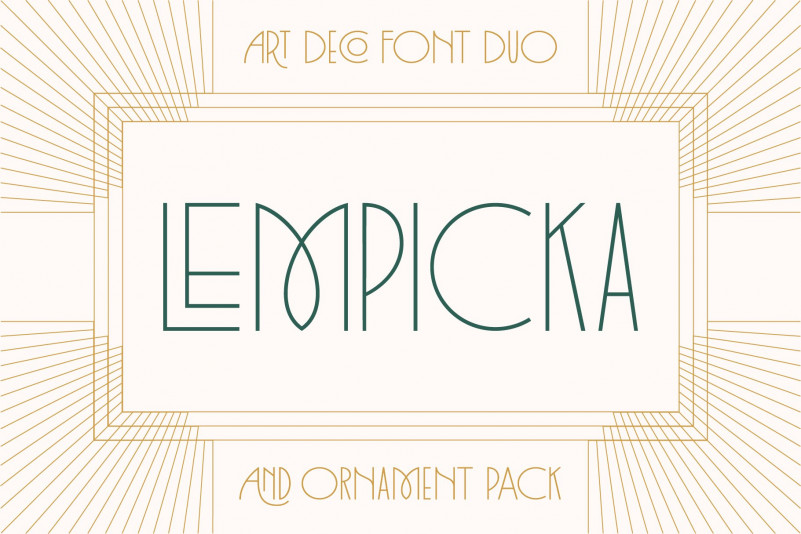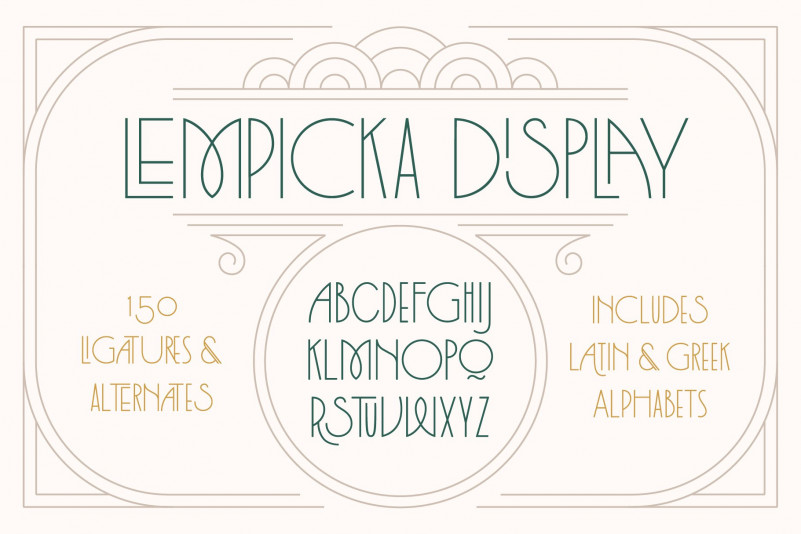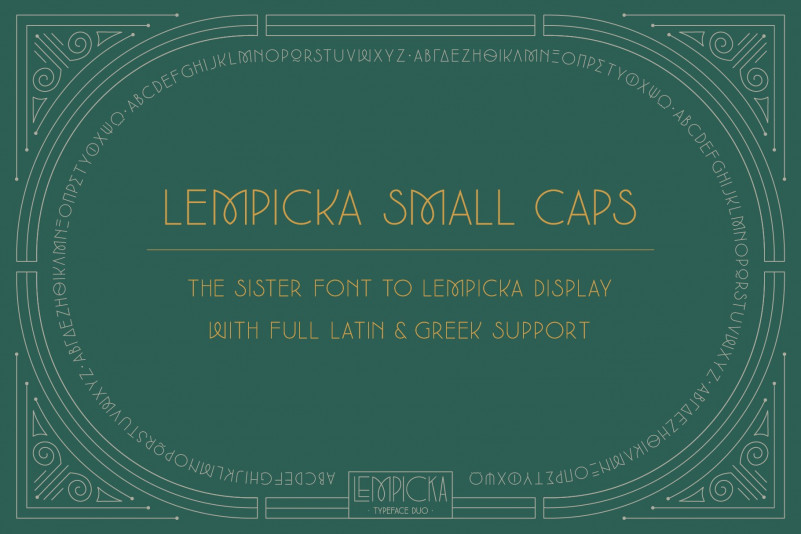
Lempicka Font
Lempicka is an Art Deco-inspired, ligature-rich typeface duo with support for Latin and Greek. In this package, you will receive two fonts and one vector pack of frames and ornaments.
Lempicka Display and Lempicka Small Caps are a pair of light, clean fonts with strong Deco character. The frames and ornaments are all fully editable vectors – including a Save The Date template – that complement the fonts beautifully.